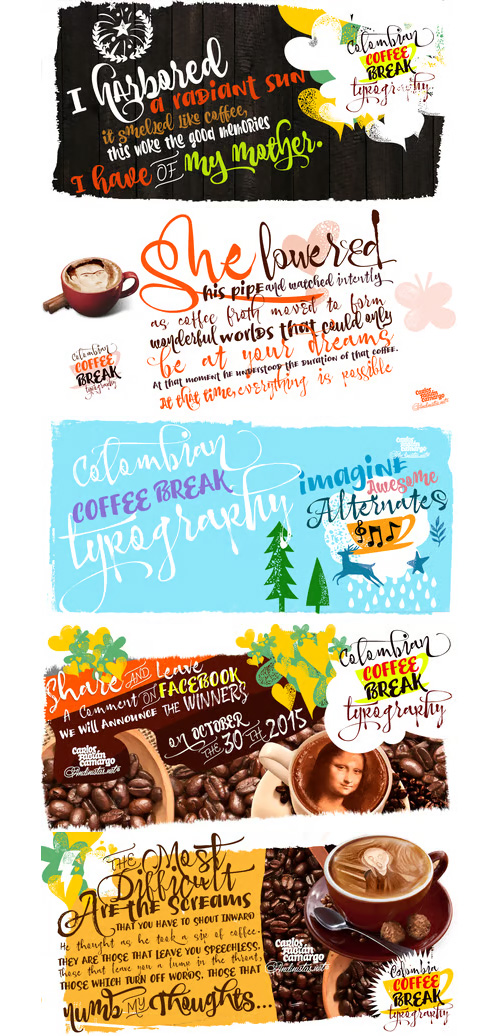
CoffeeBreak - Masterfully Expressed
- The coffee made typography. CoffeeBreak is a typefamily designed by Carlos Fabian Camargo G. Its purpose is to communicate similar feelings to the ones you get when you first try the best roasted Colombian coffee early in the morning. That is the reason of the waiting, accompanied, or when you only want to be, nuances your design with its fonts full of flavor, texture and passion. For each time, every time, it gives you hints of flavor to design your day. It unleashes your artistic streak mixing possibilities as you wish, to your taste or the taste of your friends or that special someone.
Coffee Break Script 1 & 2:
CoffeeBreak Words & WordsBold:
CoffeeBreak Dingbats: